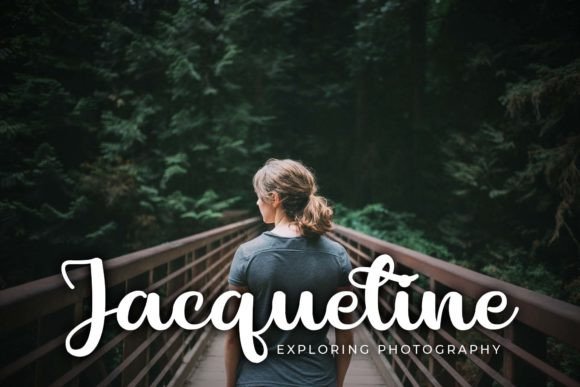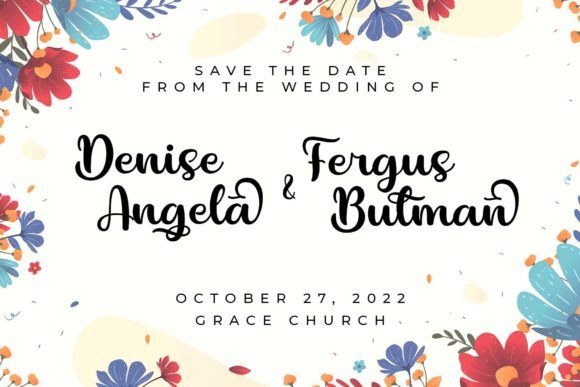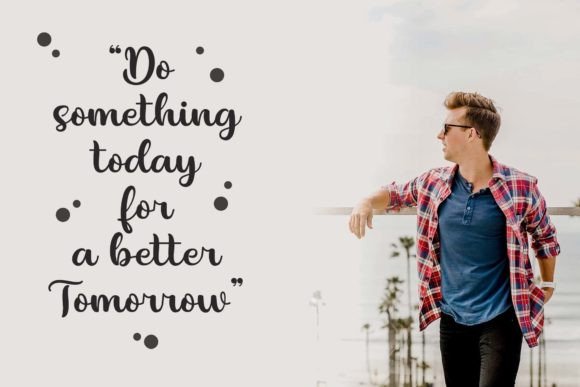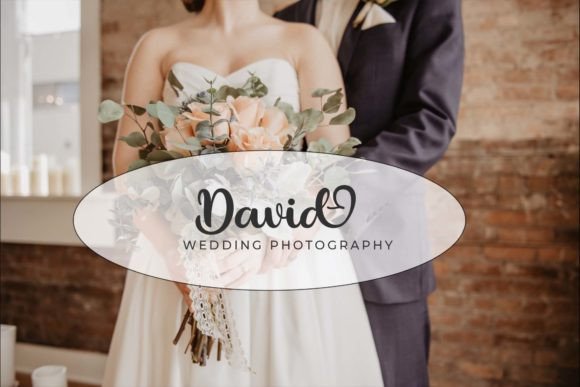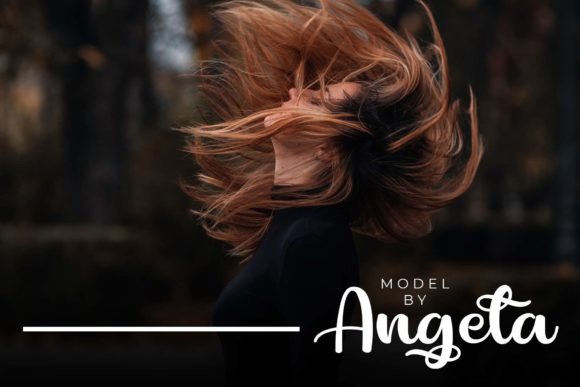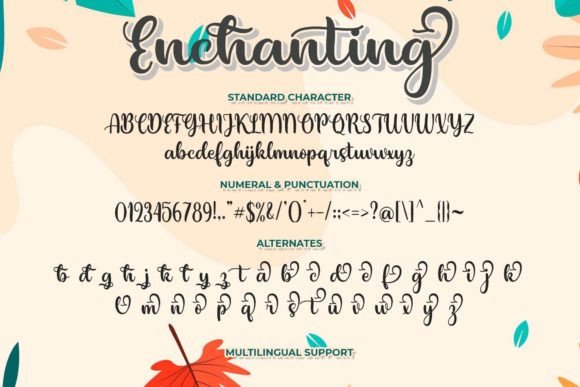
The Enchanting Font: A Stunning Work of Art for Your Designs
Are you tired of using the same old fonts in your designs? Look no further! The Enchanting font is a beautiful handwritten typeface that is sure to add a touch of magic to your creations. This stunning font is perfect for designers and crafters who want to add a personal touch to their work.
A Beautiful Handwritten Typeface
The Enchanting font is a gorgeous handwritten font that is designed to look like it was written with love and care. Each letter is carefully crafted to create a sense of elegance and sophistication. The font is perfect for adding a touch of whimsy and charm to your designs, making it ideal for use on branding materials, signs, invitations, business cards, and more!
The Enchanting font is incredibly versatile and can be used on a wide range of design projects. Here are just a few ideas to get you started:
- Branding Materials: Use The Enchanting font to create stunning logos, packaging, and marketing materials that will help your brand stand out.
- Signs and Invitations: Add a touch of elegance to your signs and invitations with this beautiful font.
- Business Cards: Make a lasting impression with business cards that feature The Enchanting font.
- Social Media Graphics: Use The Enchanting font to create eye-catching social media graphics that will help you connect with your audience.
One of the best things about The Enchanting font is that it is PUA (Private Use Area) encoded. This means that you can access all of the glyphs and swashes with ease, giving you even more creative freedom to customize your designs. With PUA encoding, you can:
- Access alternate characters: Switch between different versions of letters and numbers to add variety to your designs.
- Use swashes and flourishes: Add a touch of elegance to your designs with beautiful swashes and flourishes.
- Create custom ligatures: Combine letters to create unique and eye-catching ligatures.
Why Choose The Enchanting Font?
So why should you choose The Enchanting font for your designs? Here are just a few reasons:
- Unique and eye-catching: The Enchanting font is a one-of-a-kind typeface that will help your designs stand out from the crowd.
- Elegant and sophisticated: This font is perfect for designers who want to add a touch of elegance and sophistication to their work.
- Easy to use: The Enchanting font is PUA encoded, making it easy to access all of the glyphs and swashes.
- Versatile: This font can be used on a wide range of design projects, from branding materials to social media graphics.
The Enchanting font is a stunning work of art that is sure to add a touch of magic to your designs. With its beautiful handwritten typeface, PUA encoding, and versatility, this font is perfect for designers and crafters who want to create unique and eye-catching designs. Whether you’re working on branding materials, signs, invitations, or social media graphics, The Enchanting font is sure to impress. So why wait? Download The Enchanting font today and start creating stunning designs that will leave a lasting impression!